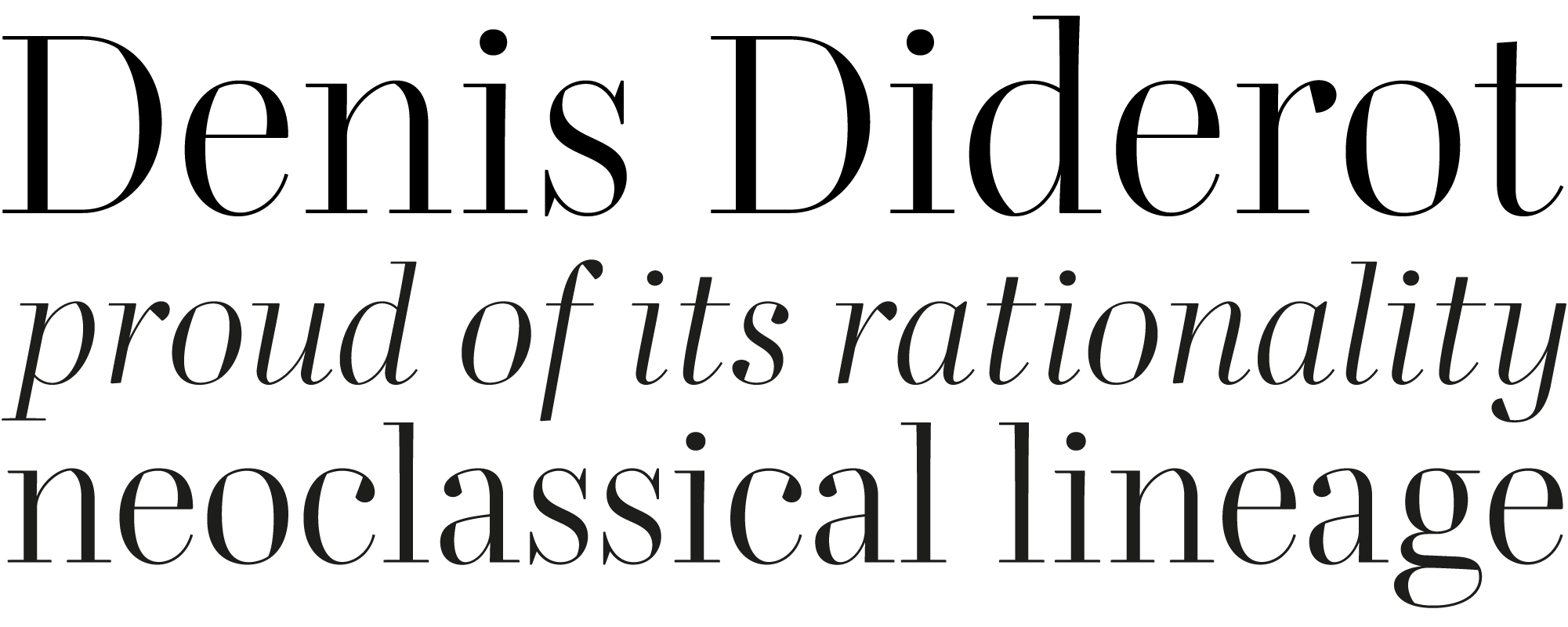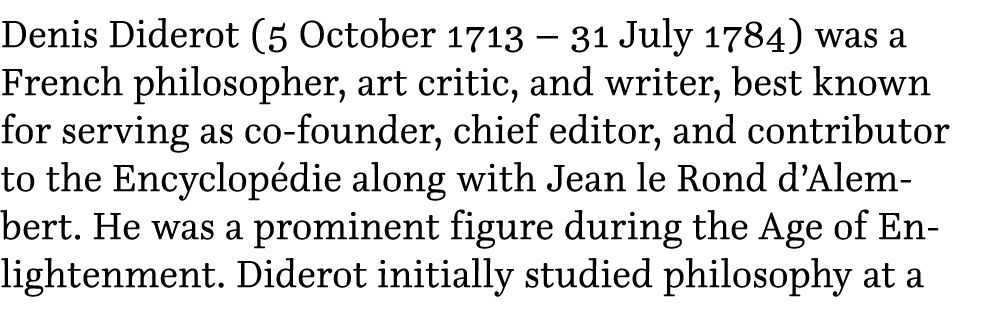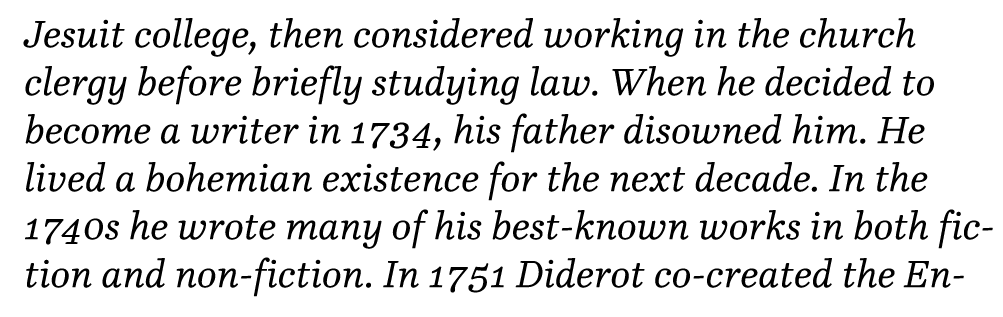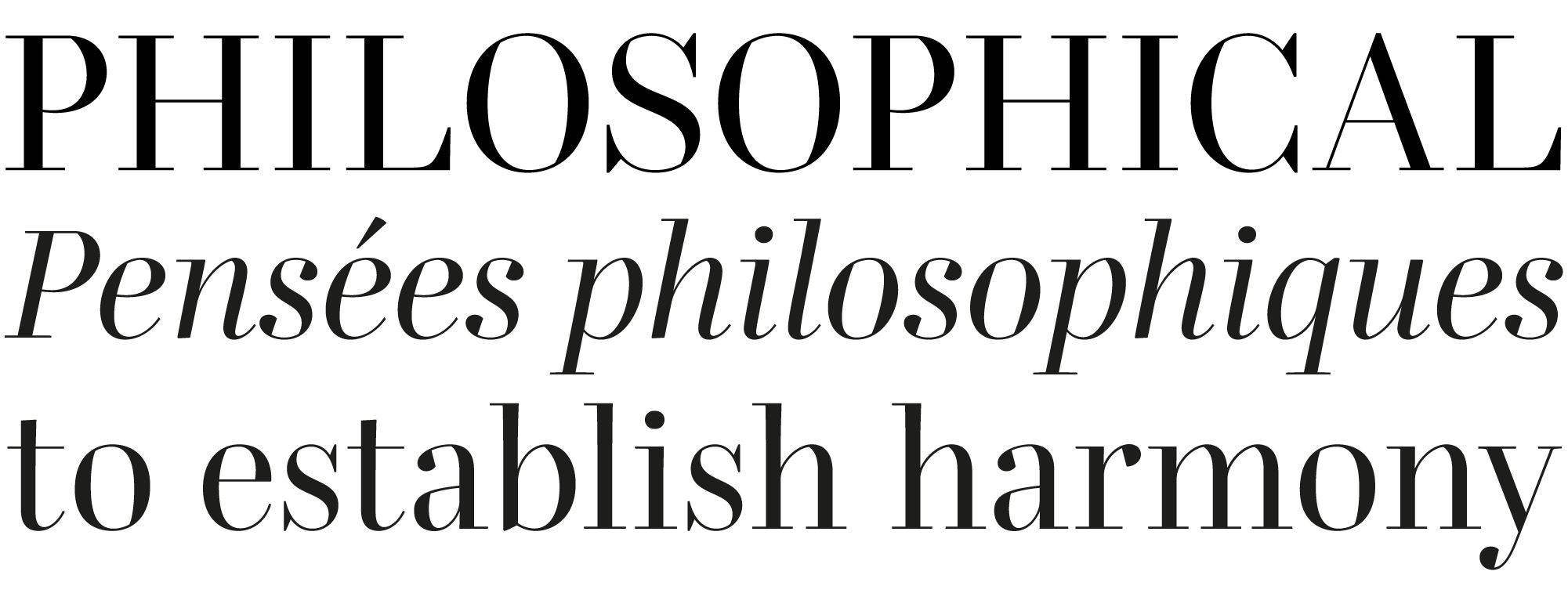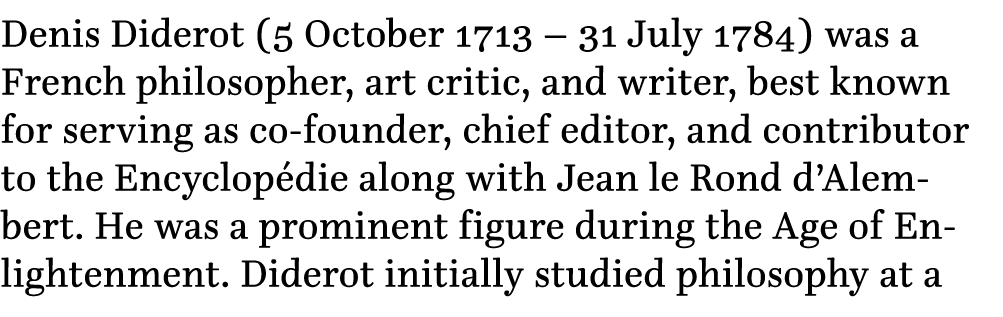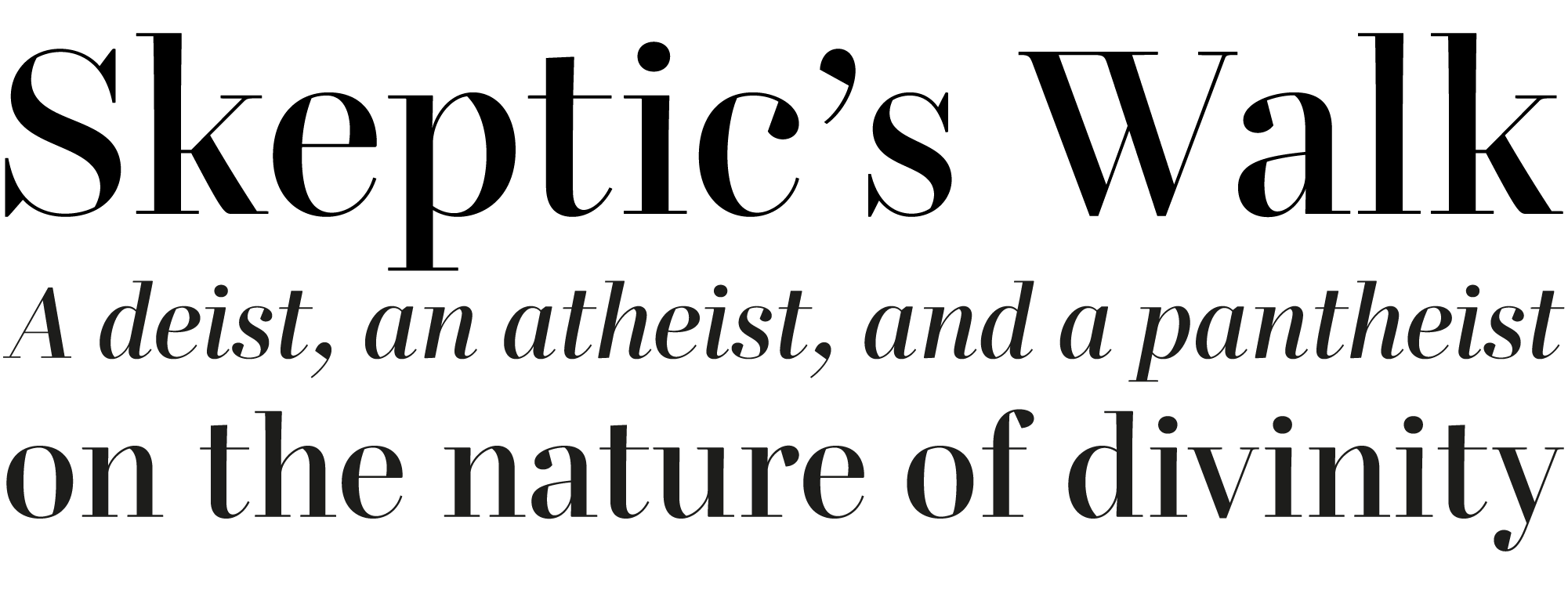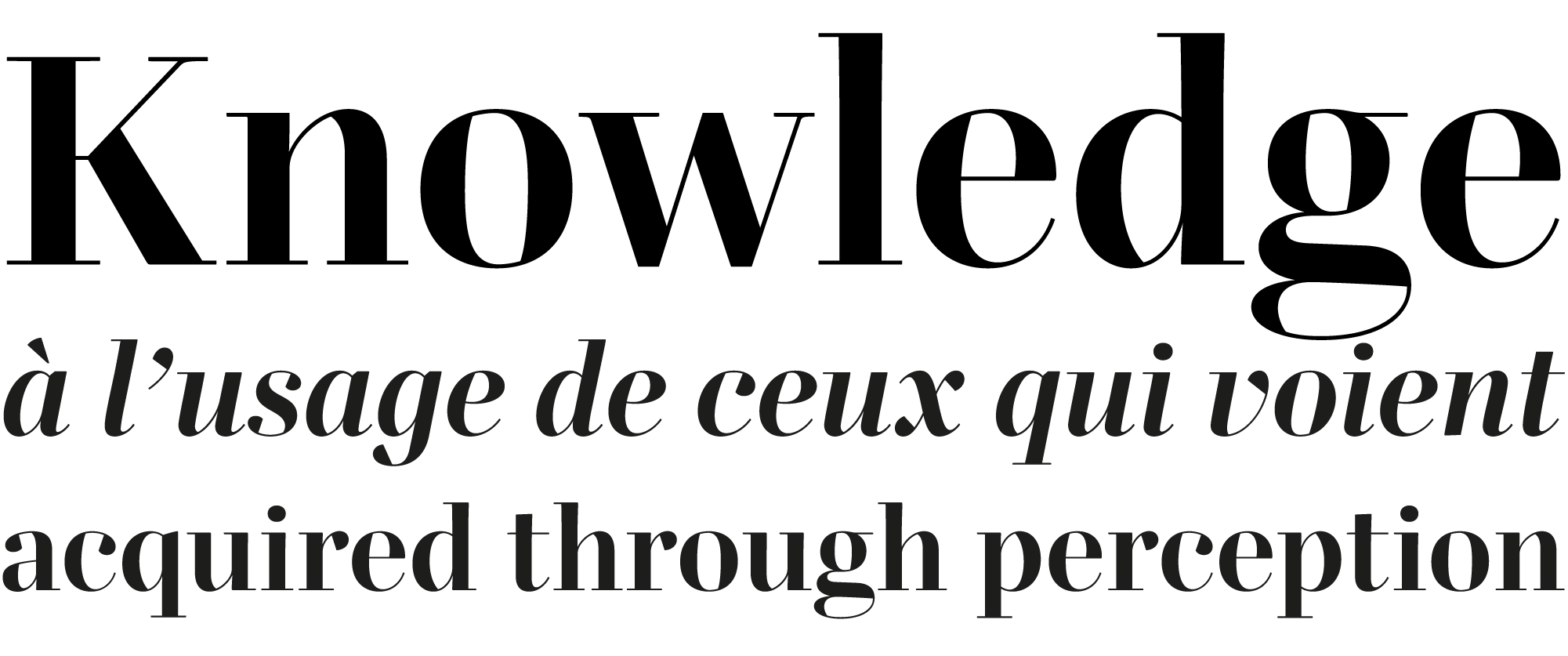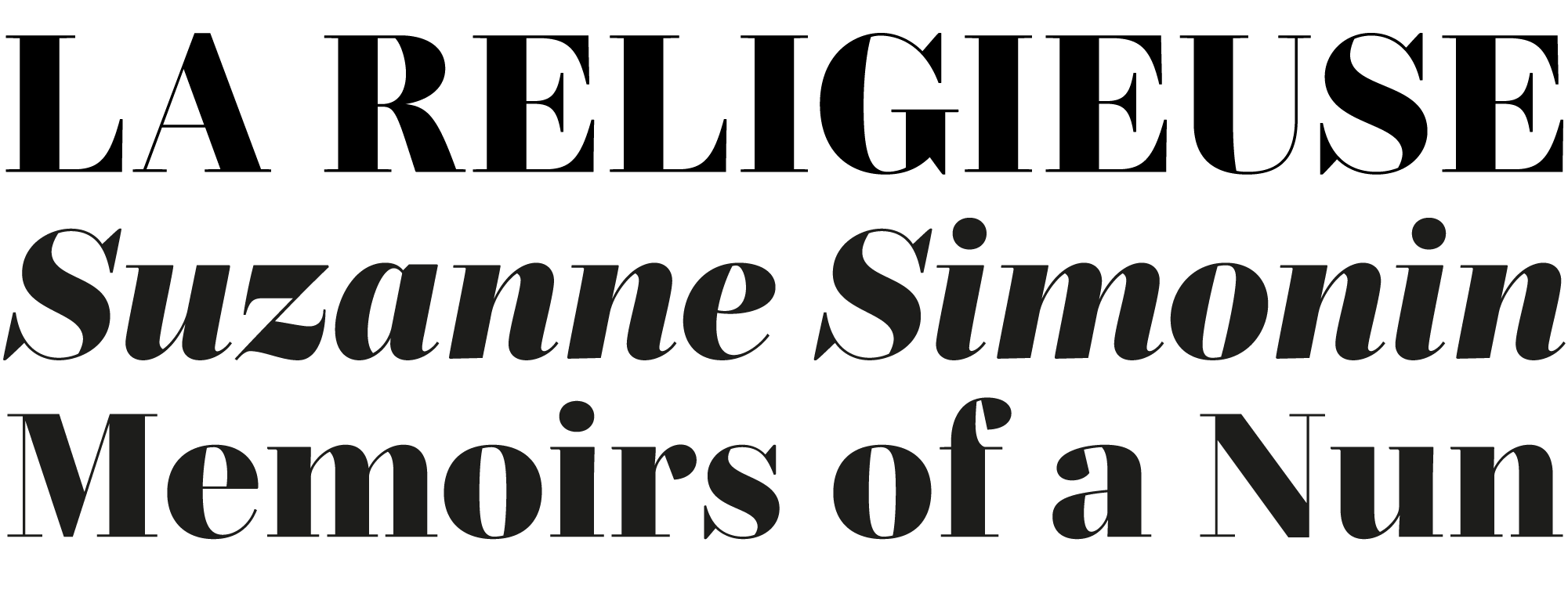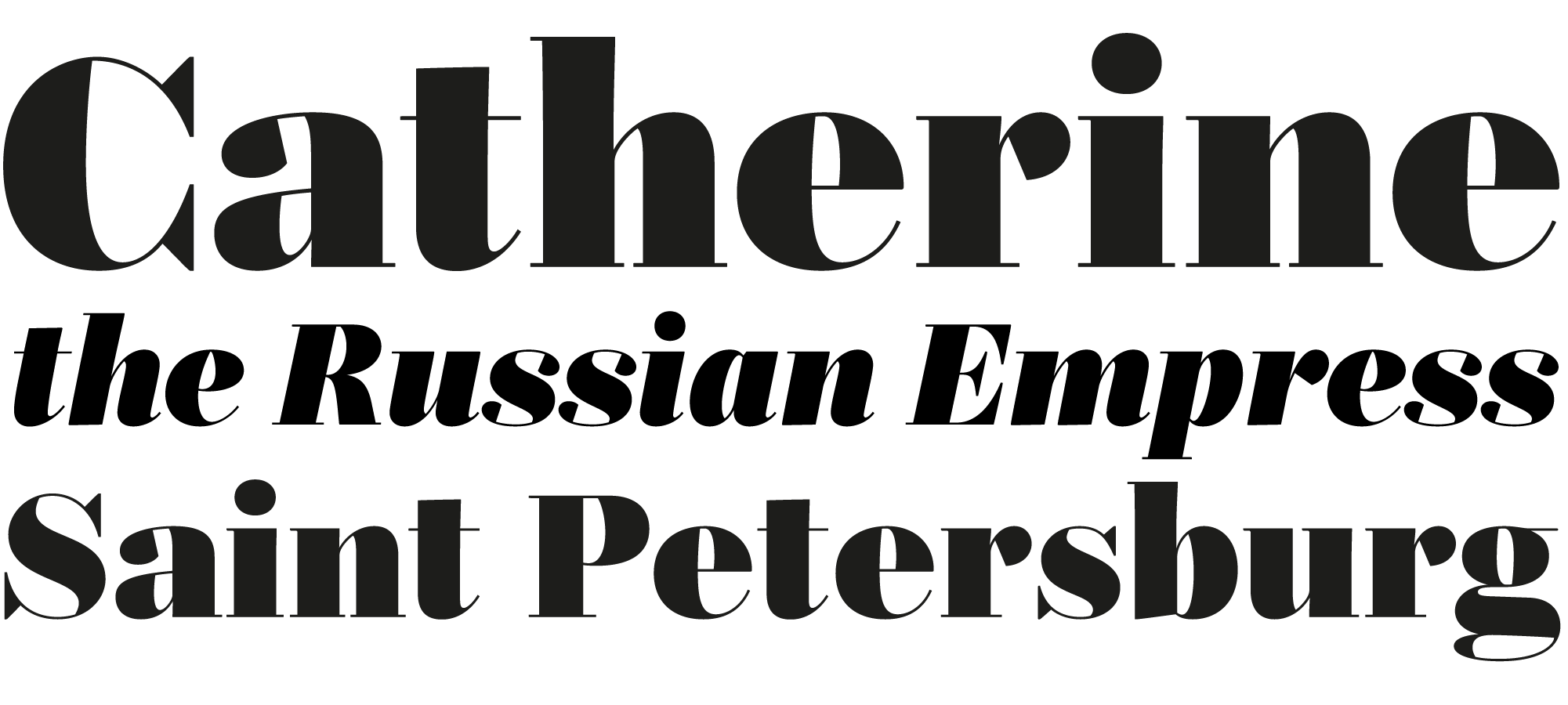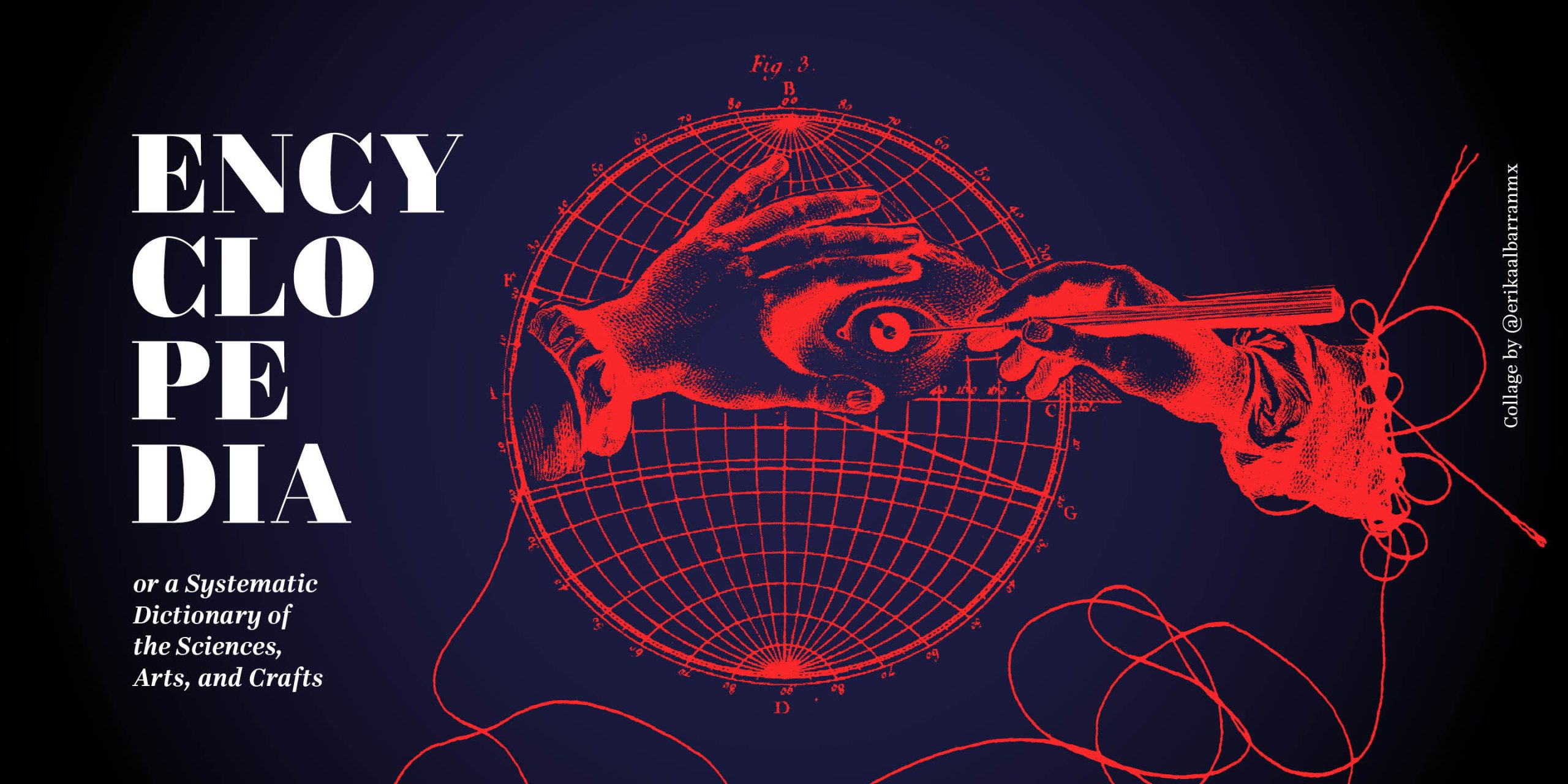
Diderot
Diderot is an extensive type family proud of its rationality and neoclassical lineage. Although it is inspired by the Encyclopédie era, it is not a revival of an eighteenth-century typeface, but a contemporary interpretation of the enlightened spirit. As with others of its kind, such as Fournier or Baskerville, it is markedly vertical, but it differs from them in three fundamental ways: 1) unbracketed serifs, popularized at the end of the century thanks to Didot and Bodoni; 2) in the Text fonts, robust strokes to favor legibility; and, 3) the daring alternation of angles and curves, particularly visible in the Display fonts, lending unexpected vitality to the geometric coldness usually seen in neoclassical and romantic typefaces. It is appropriate for composing literary, essayistic, philosophical works and, in general, to metaphorize reliability, coherence, wit and elegance. It currently consists of 36 fonts in OpenType format (.otf) divided into three subfamilies: Diderot Display (for 48 points or more), Diderot Subhead (around 24 points) and Diderot Text (ideal for 12 points). It is also offered as a variable font (VF), a format that compiles the 36 variants into only two files, allowing the user to choose in some applications (such as Adobe InDesign and Illustrator; Affinity Designer, Photo and Publisher) versions suitable for any point size between 12 and 48 points, as well as hundreds of intermediate weights between Regular and Ultra. Each of the 36 fonts consists of 1140 glyphs, including diacritics to write in a wide variety of languages that use the Latin alphabet, including Vietnamese, as well as authentic small caps, various sets of numerals and uppercase punctuation, accessible in software that recognize OpenType substitutions. ¶ Diderot es una extensa familia tipográfica orgullosa de su racionalidad y de su linaje neoclásico. Si bien está inspirada en la época de la Encyclopédie, no es un rescate de algún tipo de mediados del siglo XVIII, sino una interpretación contemporánea del espíritu ilustrado. A semejanza de otras representantes de su género, como Fournier o Baskerville, posee una marcada verticalidad, pero también se distancia de ellas en tres aspectos fundamentales: 1) remates sin transición, popularizados en las postrimerías de la centuria gracias a Didot y Bodoni; 2) en las fuentes para texto, trazos robustos para favorecer la legibilidad; y 3) una audaz alternancia de ángulos y curvas, particularmente visible en las fuentes para títulos, la cual infunde una inesperada vitalidad a la frigidez geométrica que normalmente padecen los tipos neoclásicos y románticos. Es adecuada para componer trabajos literarios, ensayísticos, filosóficos y, en general, para metaforizar confiabilidad, coherencia, ingenio y elegancia. Actualmente consta de 36 fuentes en formato OpenType (.otf) divididas en tres subfamilias: Diderot Display (para 48 puntos o más), Diderot Subhead (alrededor de 24 puntos) y Diderot Text (ideal para 12 puntos). También se ofrece como fuente variable (VF), formato que compila las 36 variantes en únicamente dos archivos, lo que permite que en algunas aplicaciones (como Adobe InDesign e Illustrator; Affinity Designer, Photo y Publisher) el usuario elija versiones idóneas para cualquier puntaje entre los 12 y los 48 puntos, así como cientos de pesos intermedios entre Regular y Ultra. Cada una de las 36 fuentes consta de 1140 glifos, entre los que se encuentran diacríticos para escribir en una gran variedad de lenguas que usan el alfabeto latino, incluyendo vietnamita, así como versalitas auténticas, varios juegos de números y puntuación para mayúsculas, accesibles en programas que reconozcan sustituciones OpenType.